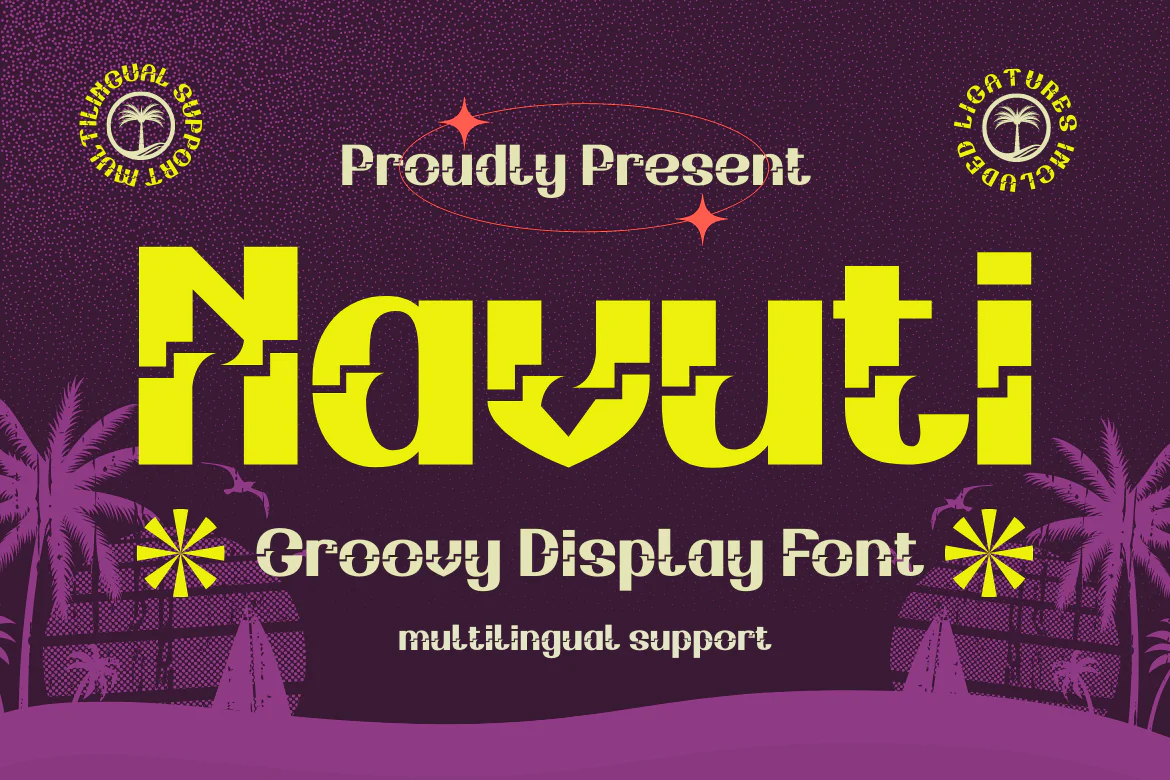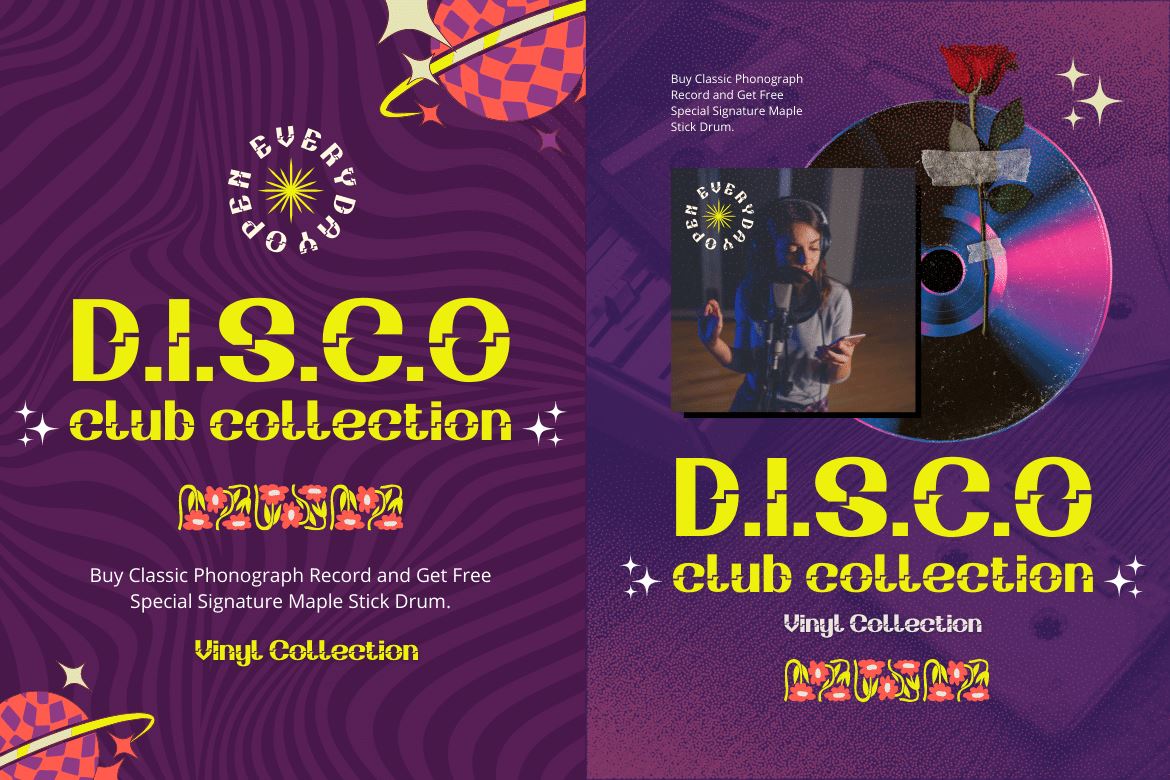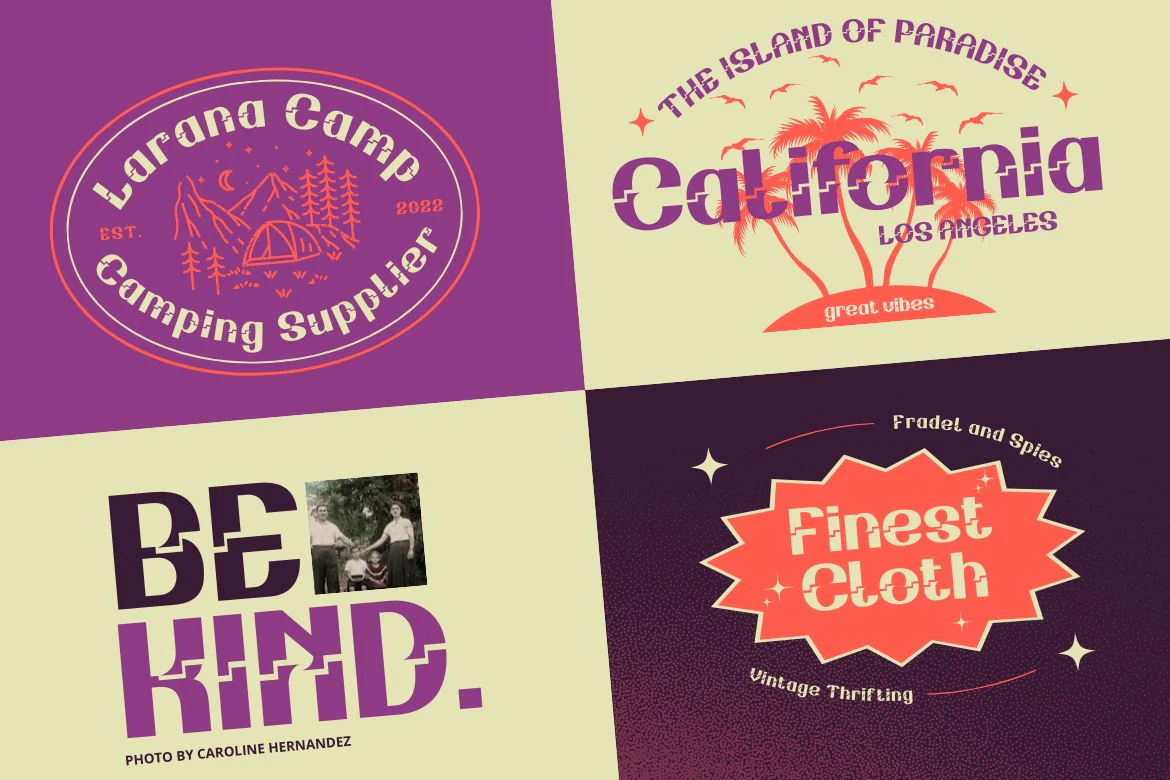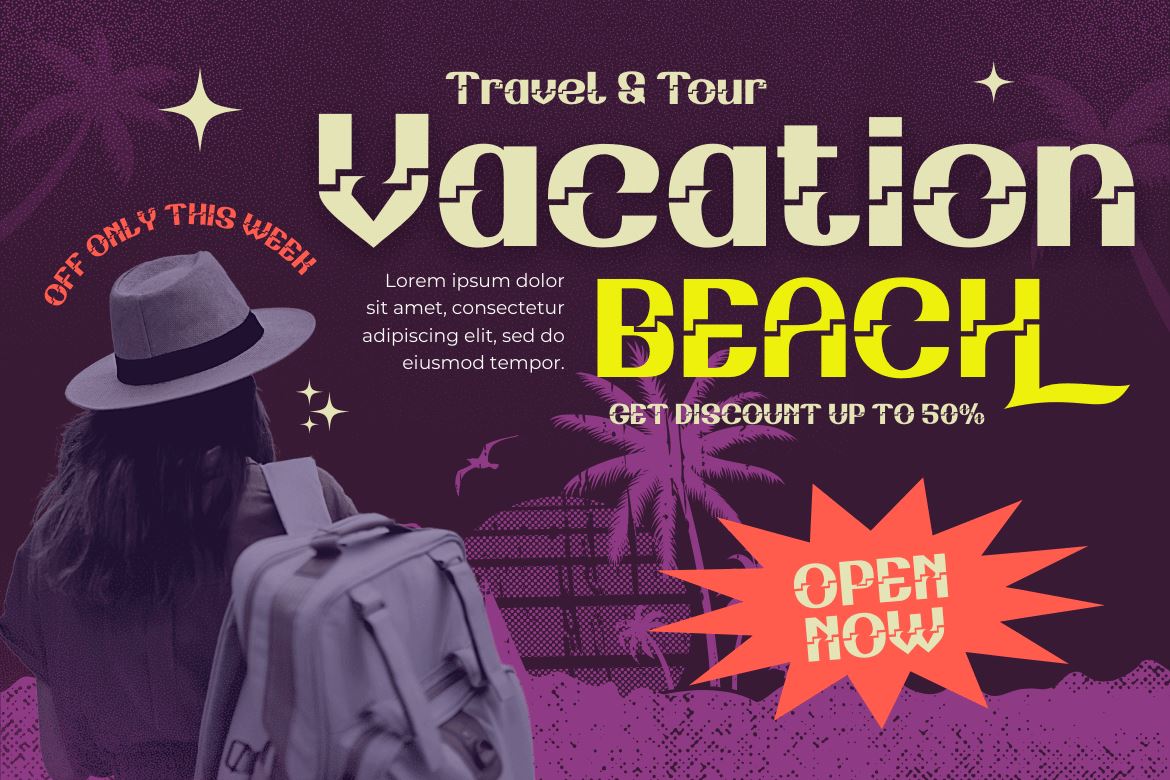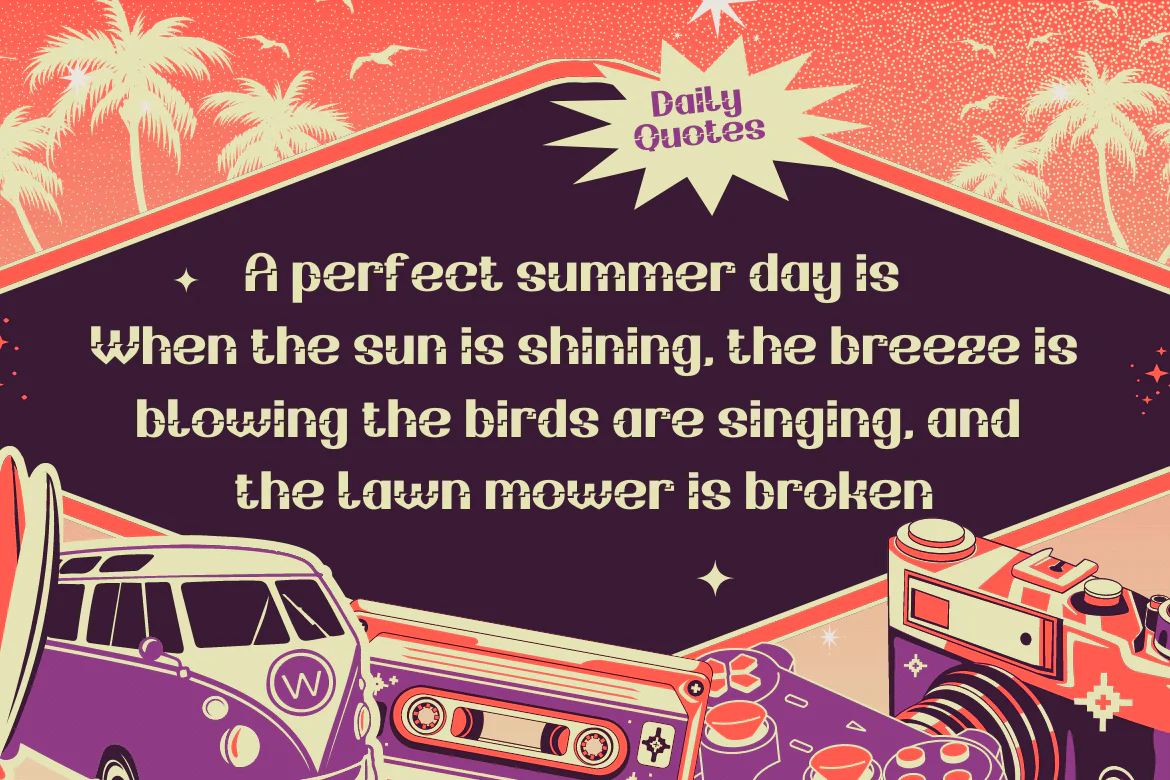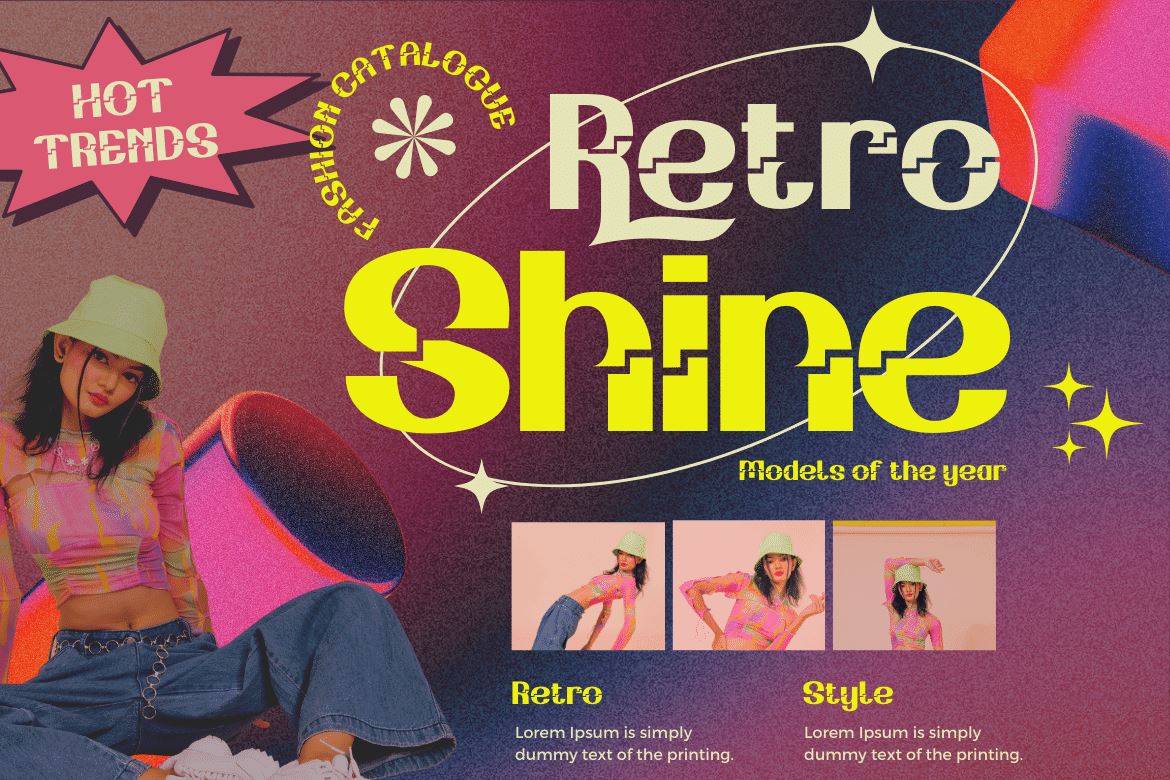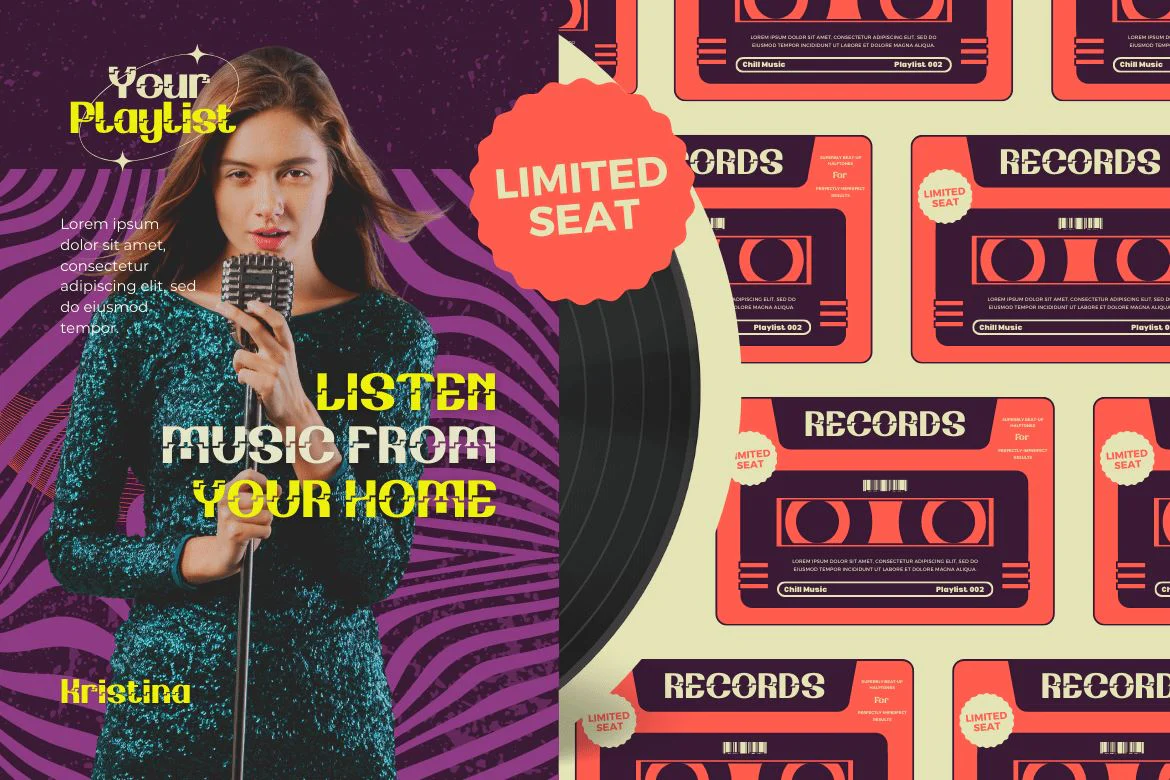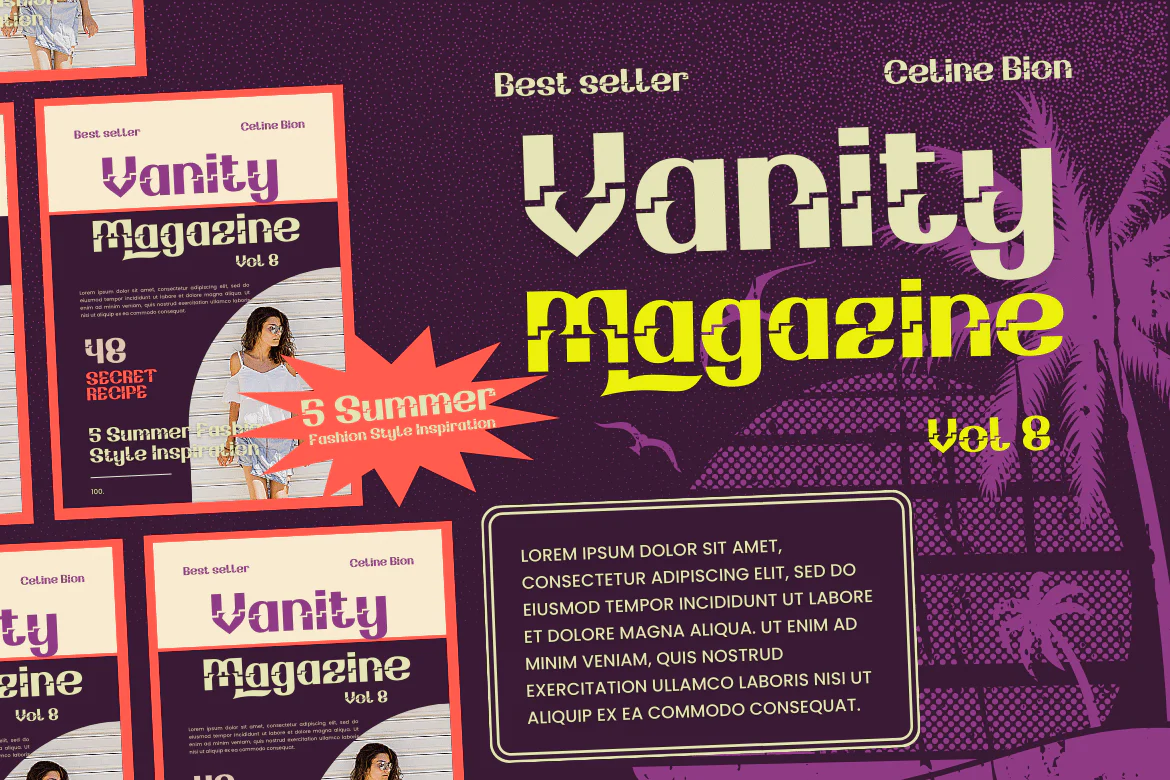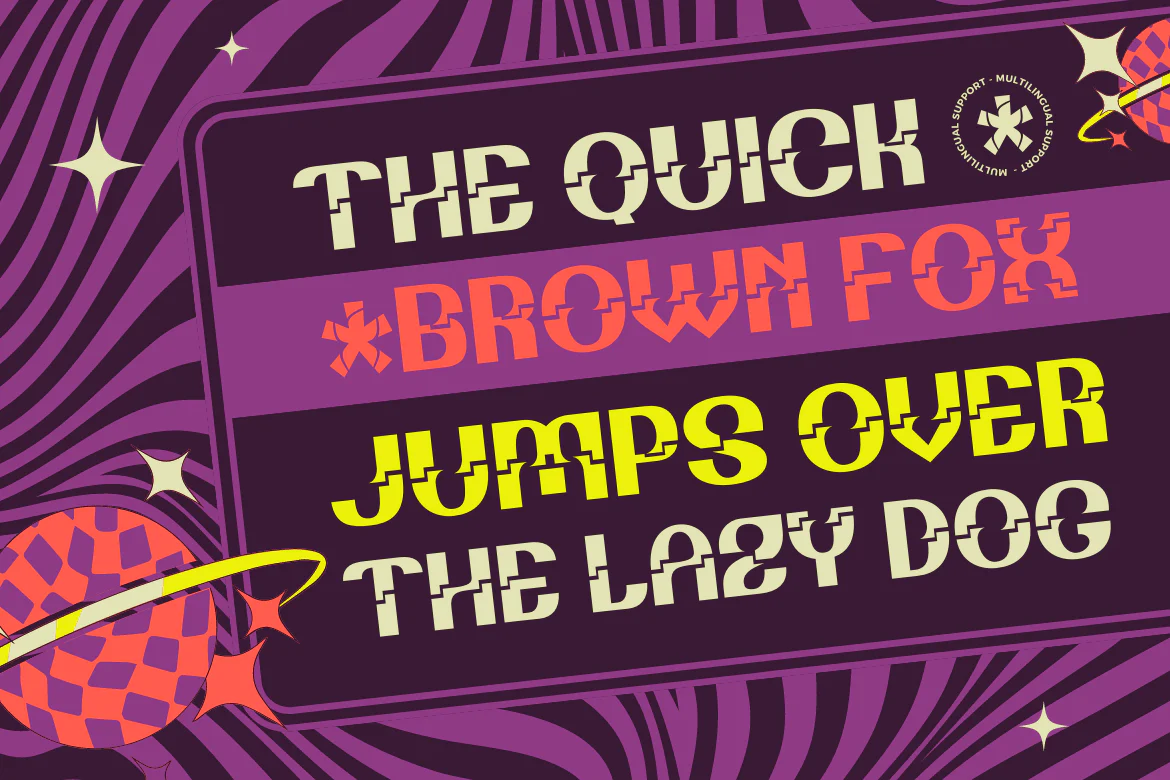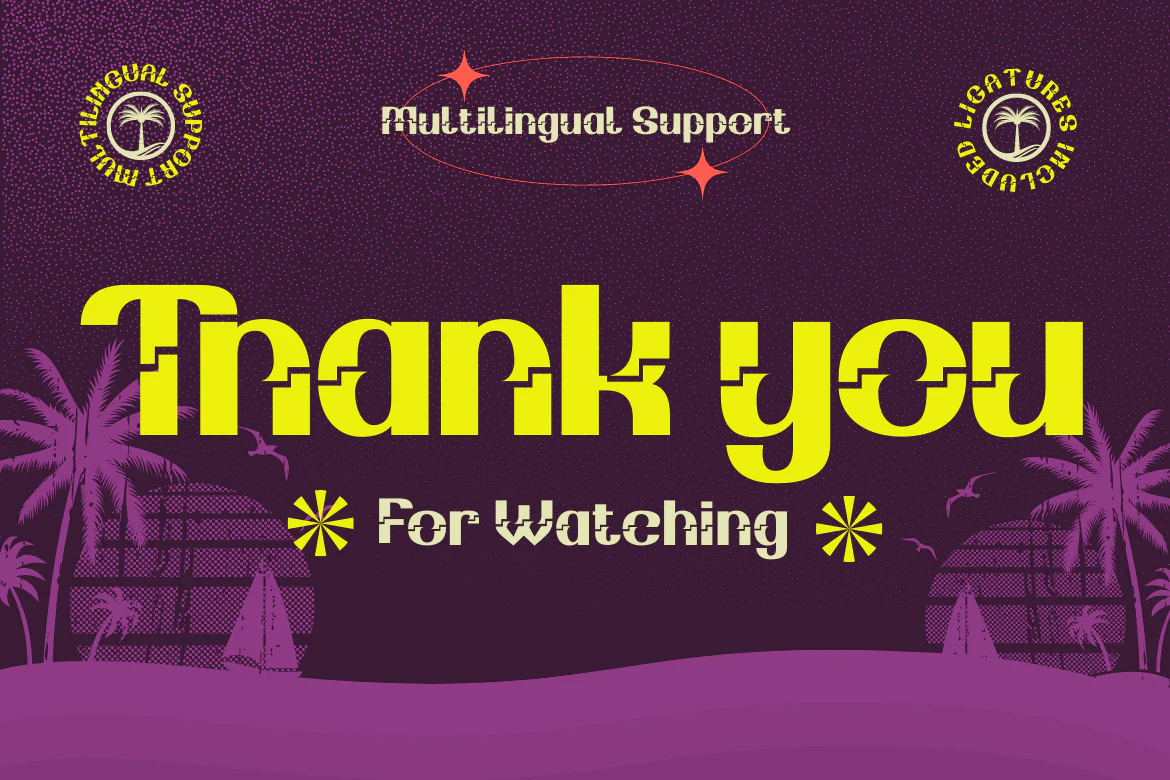
Navuti | Groovy Retro Font
Introducing a Groovy font called Navuti. The Groovy Font is a bold and fun typeface. It is the ideal font for all your design requirements, such as branding, product packaging, or even just to add a touch of flair to your editorial work. This fine font features a contemporary design with a unique shape that will add elegance to any design. Incorporate Groovy Fonts into your designs right away!